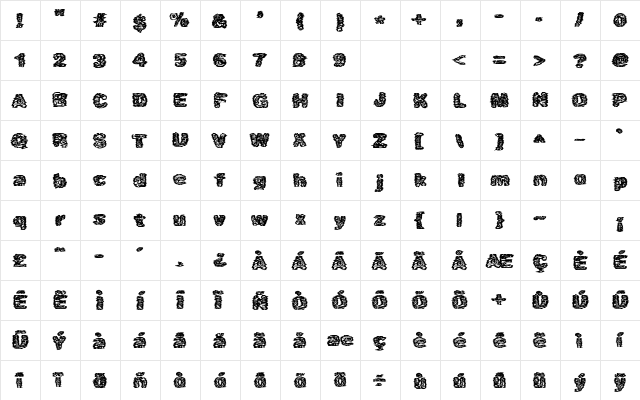
Caustic Regular
| Foundry | Xerographer Fonts |
| Designer | Max Infeld - Xerographer Fonts |
Design Context for Caustic Typeface
Caustic is a composed and adaptable typeface that performs quietly and consistently across a wide range of design contexts.